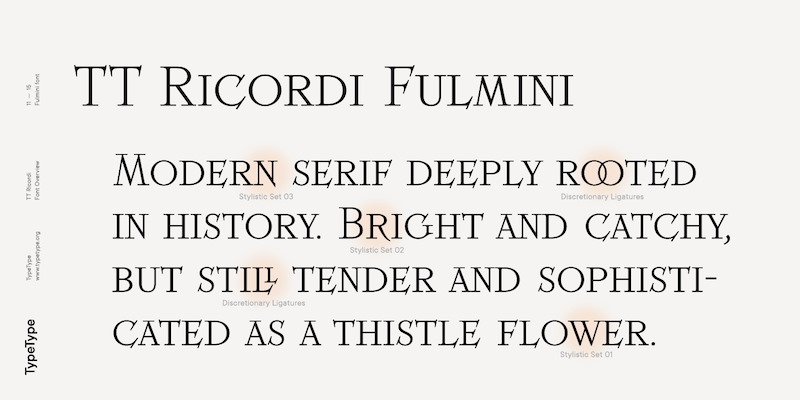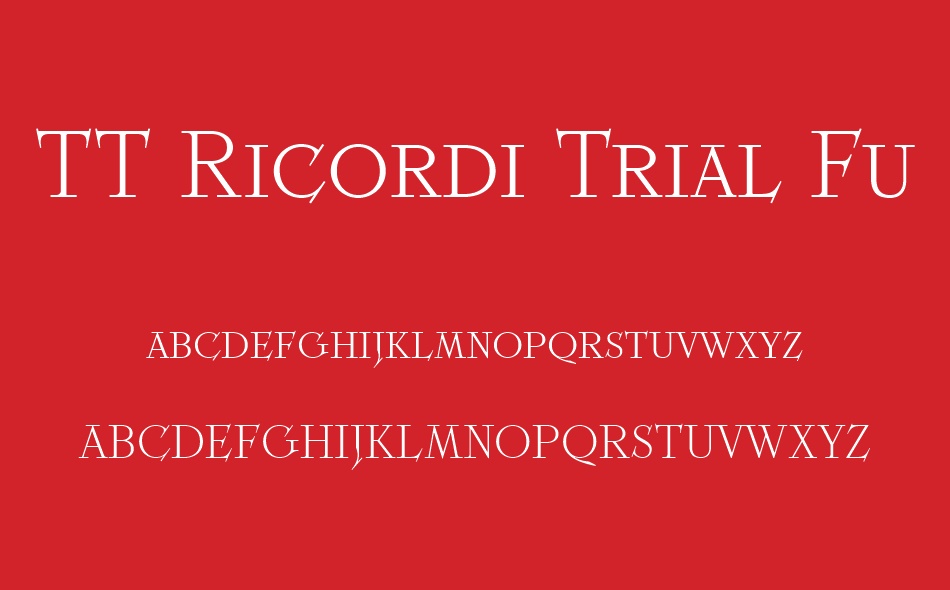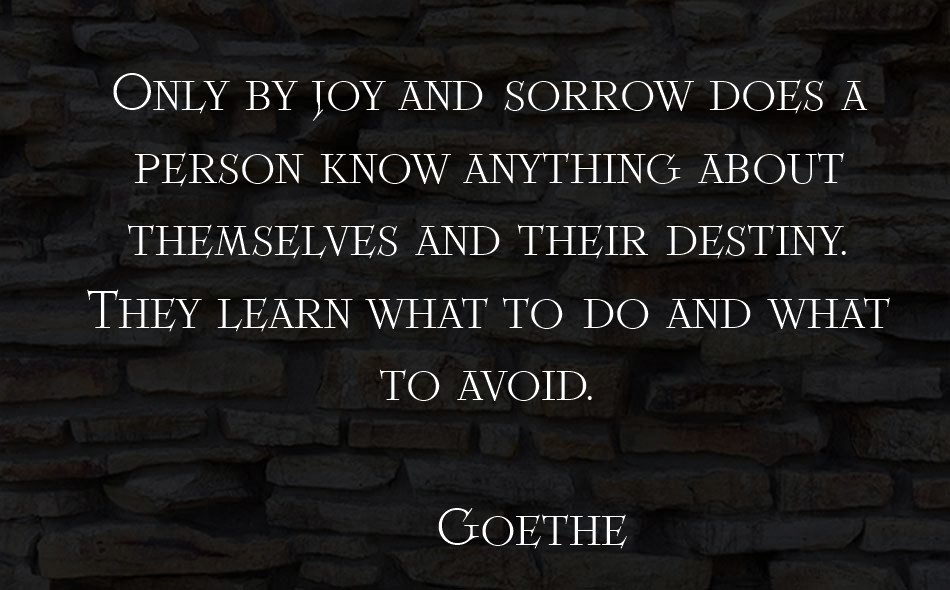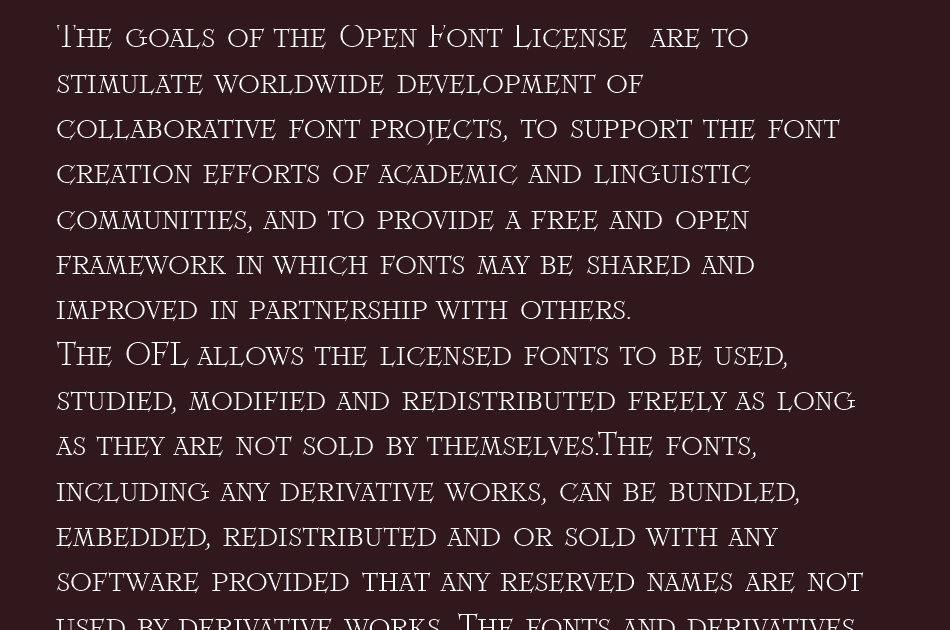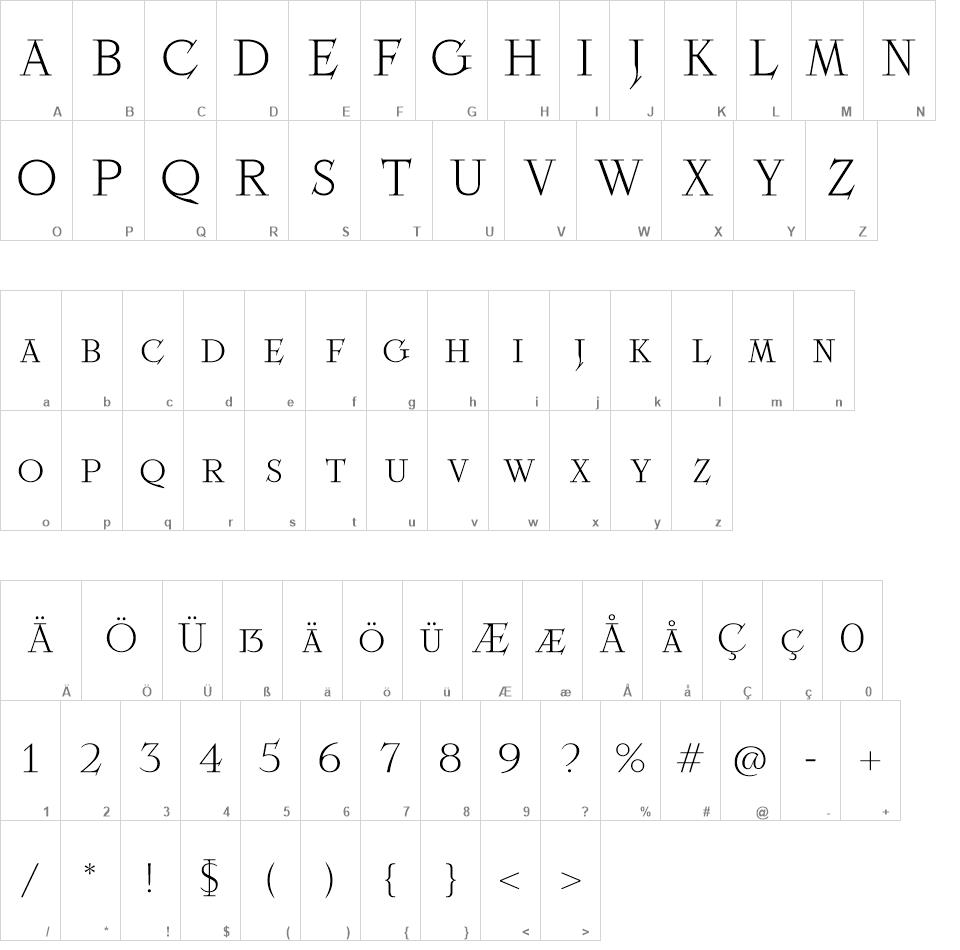
TT Ricordi Fulmini font
TT Ricordi
About TT Ricordi
The TT Ricordi font family is a collection of
three display heading serifs designed to
significantly diversify the traditional font
palette. Each font from the TT Ricordi family
was drawn by a separate designer and has its
own story. With that, all three fonts are close
in thickness and similar in their character
compositions and are featured in the up-
percase set and the small capitals set, which
replaces lowercase characters. The fonts have
broad support of Latin languages and support
basic Cyrillic.
The project originates from the pre-corona-
virus tourist trips to Italy, during which our
art director Yulia Gonina has accumulated
many photographs of historical inscriptions
and tablets. Many of these inscriptions had
an interesting character or unusual charac-
ter shapes. We wanted to work with them,
to try to reinterpret them, and, if possible,
make them ultramodern and accessible to
the modern font user. The fonts from the TT
Ricordi typeface turned out to be quite dis-
play and contemporary, but at the same time
they retained subtle references to historic
inscriptions. The fonts fit perfectly both on the
covers of book classics and in glossy magazine
layouts. They can also be used in posters and
packaging, or as the main expressive element
of company branding. In addition, all three
serifs from the TT Ricordi font family go well
with functional sans-serifs such as TT Norms
Pro or TT Commons.
Font family
TT Ricordi font family uncludes three indivi-
dual styles (Fulmini, Todi, Nobili), designed by
a separate designer and has its own story. All
three fonts are close in thickness and similar
in their character compositions.
TT Ricordi Todi
TT Ricordi Fulmini
TT Ricordi Nobili